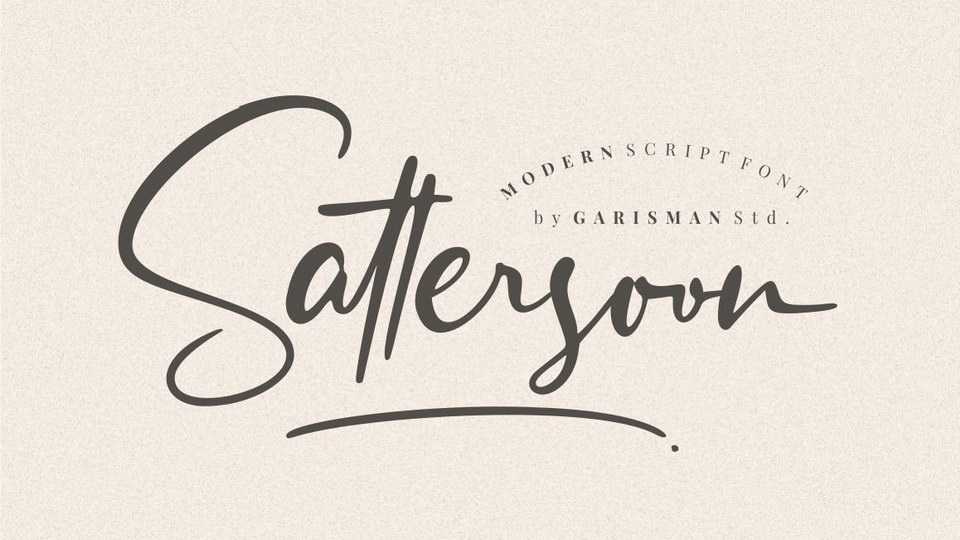
Download Sattersoon font, a naturally made modern script with beautiful ending swashes and more than 170 ligatures. Sattersoon font with the unique opentype features will add aesthetic value to your design.
Designer: Garisman Studio